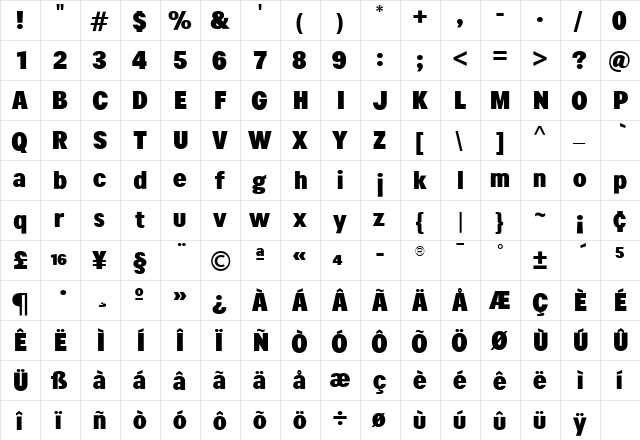
TFAdepta Extrabold
Design Context for TFAdepta Typeface
TFAdepta is a composed and adaptable typeface that performs quietly and consistently across a wide range of design contexts. Its bold stroke weight gives it real presence on the page.